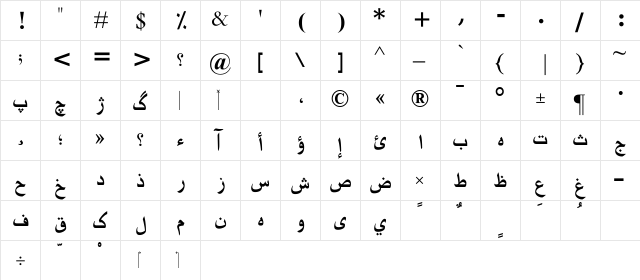
AGT Maidan Wardak Regular
| Designer | Ahmad Gul Totakhyl |
Design Context for AGT Maidan Wardak Typeface
AGT Maidan Wardak is a composed and adaptable typeface that performs quietly and consistently across a wide range of design contexts.